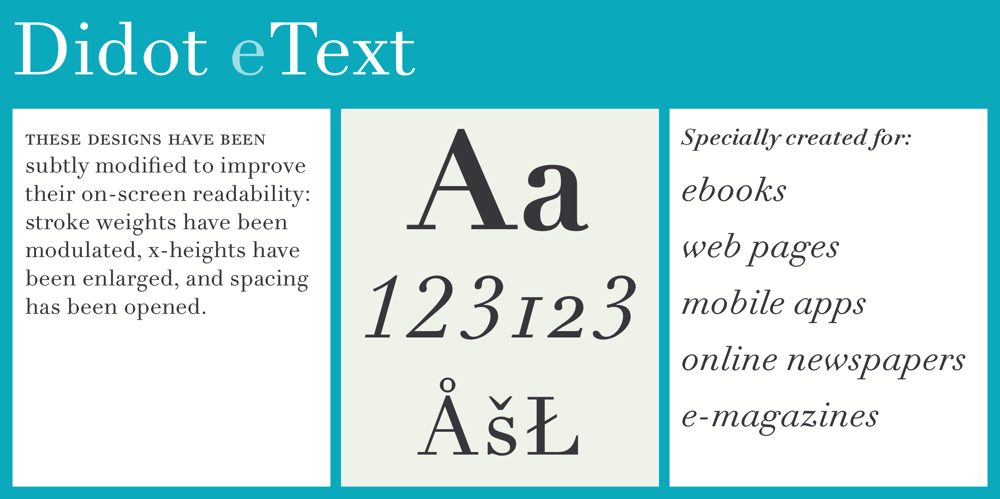
Linotype Didot eText Font Family was designed by Adrian Frutiger, Linotype Design Studio and published by Linotype. Linotype Didot eText contains 4 styles and family package options. A clear and enjoyable reading experience hinges on the legibility of text copy, especially when reading on screen. This is why Monotype has developed the eText collection of fonts specifically tailored for the text-heavy display environments of e-readers, tablets, mobile devices, and the Web.